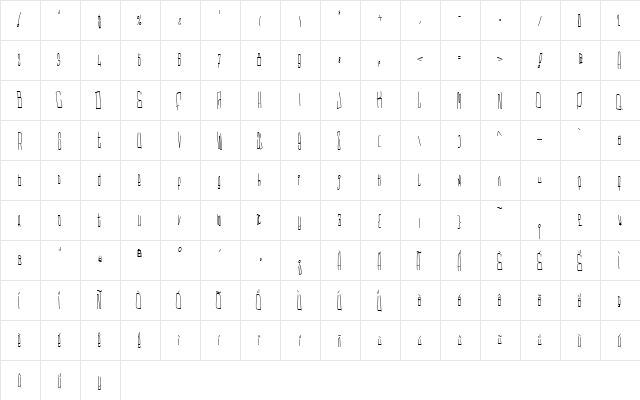
Dream Builder Regular
| Designer | Laurent MOUY (aka _n3o_) |
Design Context for Dream Builder Typeface
Dream Builder is a composed and adaptable typeface that performs quietly and consistently across a wide range of design contexts.